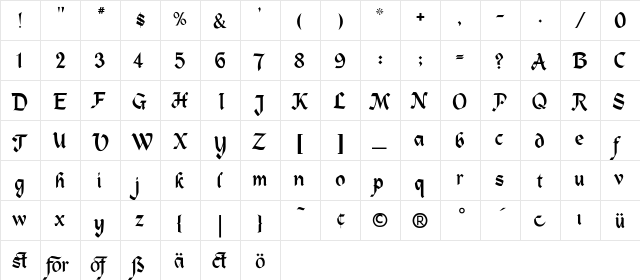
PCSeidleburg Regular
Design Context for PCSeidleburg Typeface
PCSeidleburg is a composed and adaptable typeface that performs quietly and consistently across a wide range of design contexts.